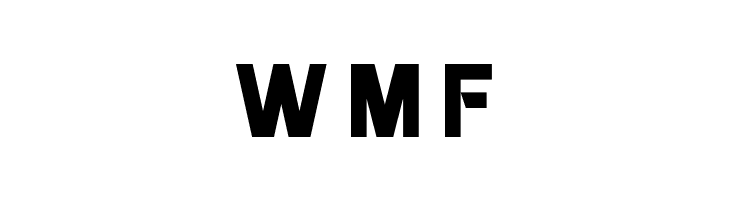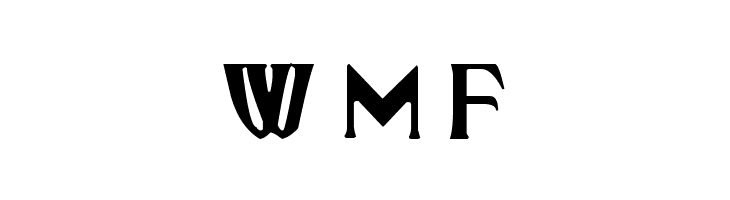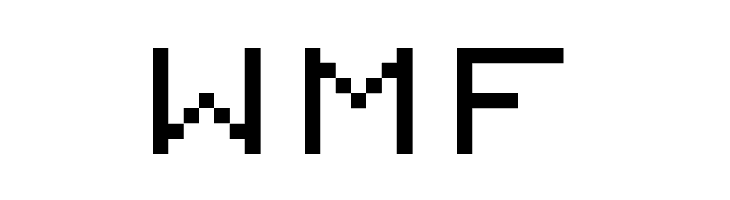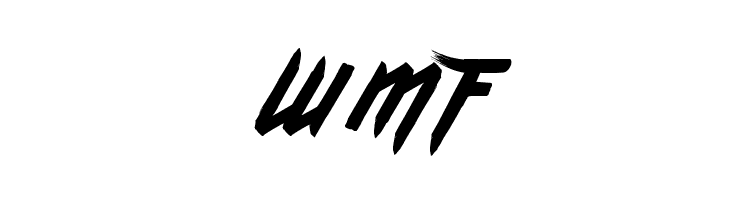
A bold, modern font with rounded edges and a geometric structure.
A modern, geometric sans-serif font with clean lines and uniform stroke width.
A bold, futuristic font with sharp angles and geometric shapes.
A futuristic, angular font with a bold, tech-inspired design.
A bold, geometric font with a modern and robust style.
A bold, dynamic handwritten font with textured strokes and energetic flow.
A bold, geometric typeface with a modern and impactful design.
A playful, rounded font with bold, smooth curves and a modern look.
A bold, dynamic font with sharp, angular edges and a fierce, energetic style.
A retro, pixelated font inspired by early digital and arcade games.
A bold, geometric font with angular shapes and dynamic strokes.
A modern, bold sans-serif font with geometric influences and excellent readability.
A bold, geometric font with angular shapes and a futuristic style.
A bold, gothic-inspired font with sharp, angular edges and dramatic serifs.
A bold, structured serif font with a geometric influence.
A geometric, modern font with a technical and futuristic design.
A bold, modern font with a strong, compact design.
A bold, brush-style font with sharp, angular strokes and high contrast.
A bold, geometric font with sharp angles and a modern, industrial feel.
A modern, rounded font with a clean and friendly appearance.
A geometric, modular font with bold, block-like shapes and a futuristic aesthetic.
A bold, geometric font with a modern, industrial design.
A bold, geometric font with a modern and assertive style.
A clean, modern geometric font with uniform line thickness and minimalist design.
A bold, angular font with sharp edges and a dynamic, stylized appearance.
A bold, angular font with a futuristic and dynamic design.
A modern, geometric font with clean lines and a minimalist style.
A bold, geometric font with a modern, industrial aesthetic.
A bold, geometric font with a futuristic and modern style.